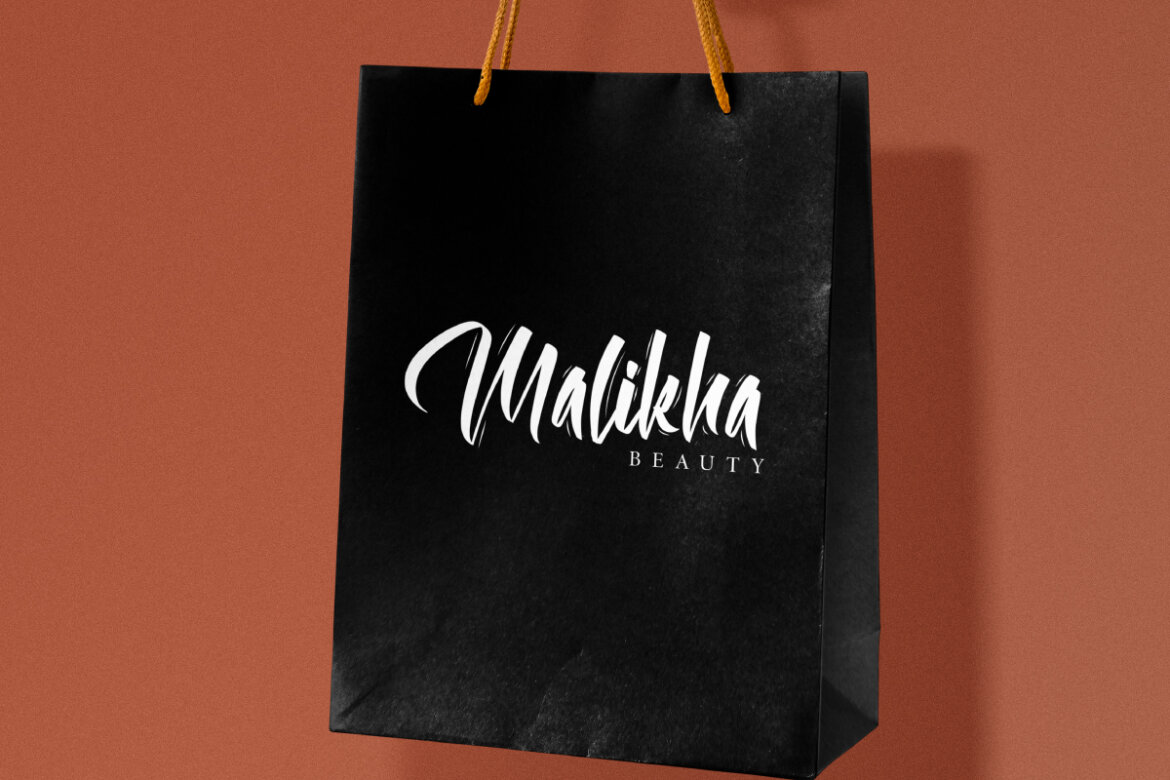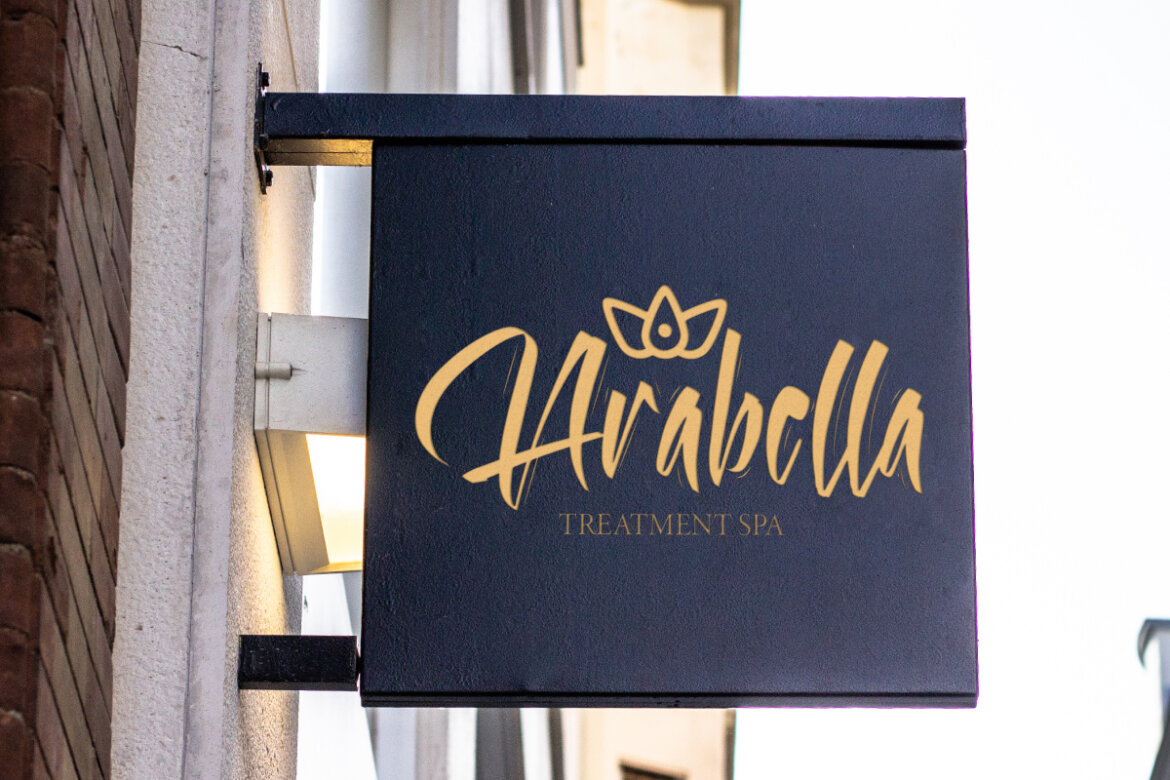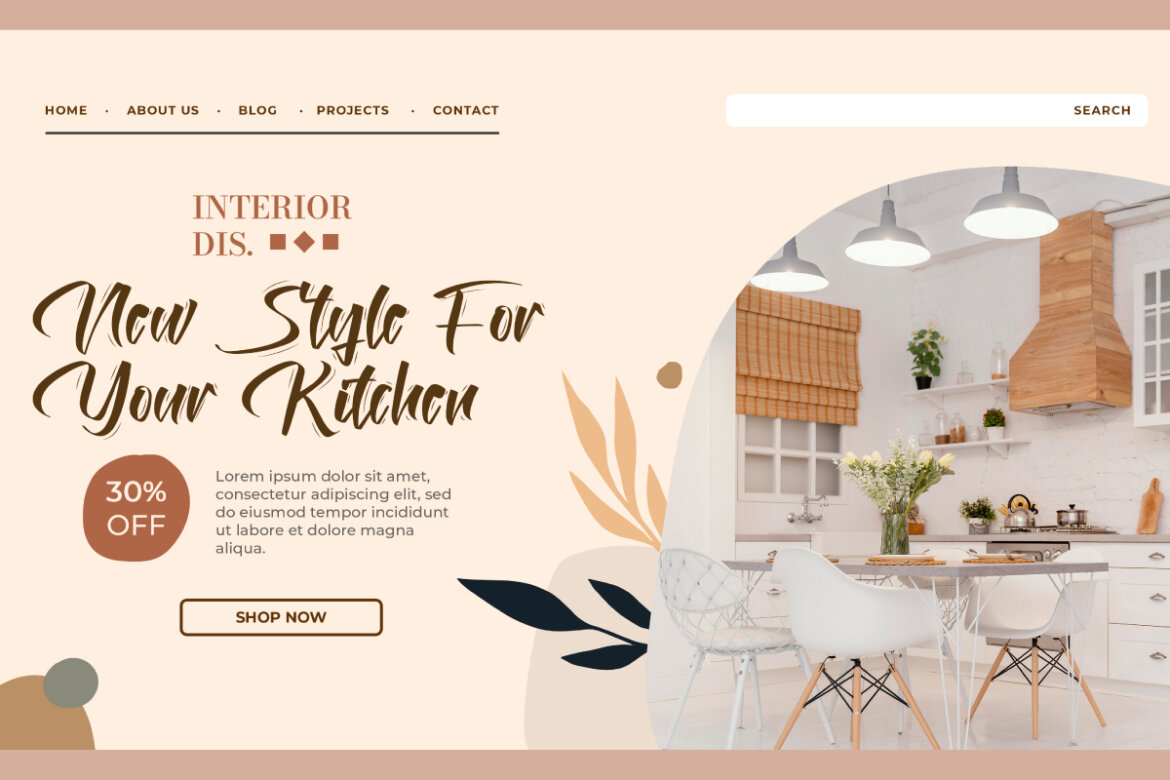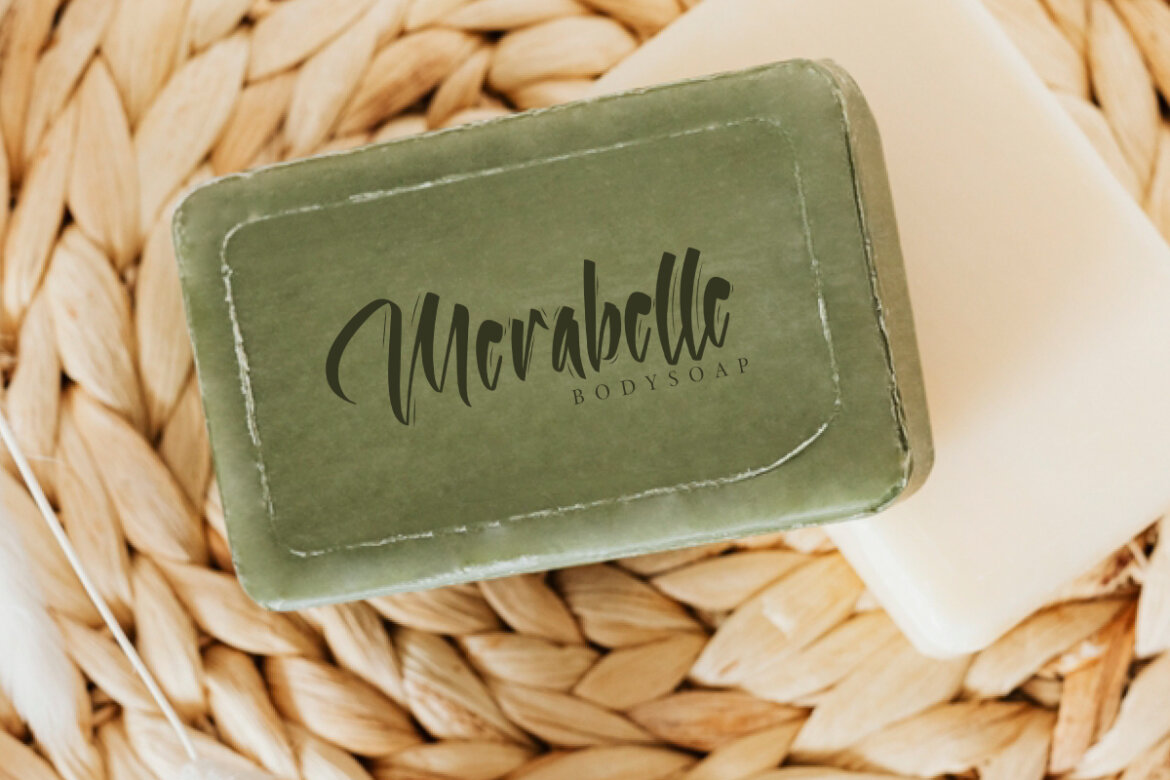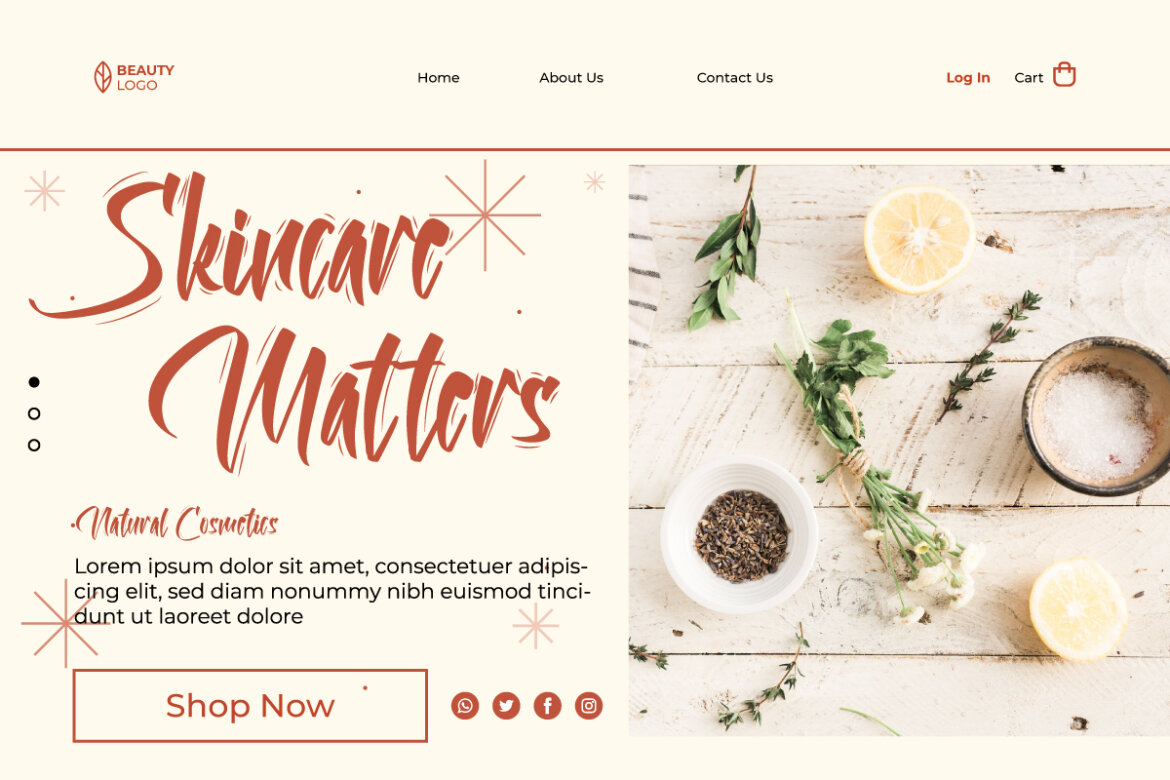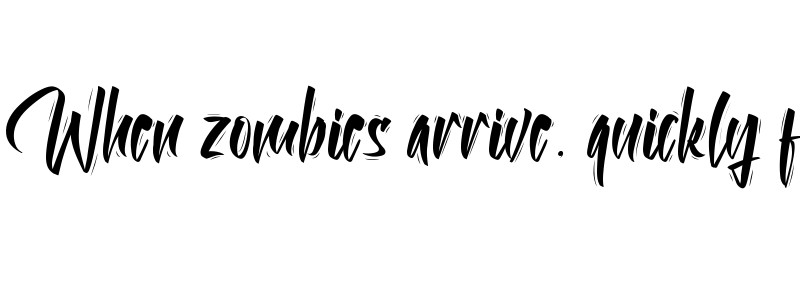
Halogenious Font
Halogenious
Halogenious Font is a vintage calligraphic script display font with textured effect on its characters. It will be perfect on all branding and digital designs. This font is perfect for advertising, blogs, brand identity, brochure, corporate sign, cover, headers, invitations, label, logos, packaging design, quotes, stationery, sticker, typographic design, website, etc.
Halogenious Font includes a complete set of Uppercase and Lowercase basic characters, Numbers, Punctuation Marks and Symbols. The font has a professional touch written in marker dipped in ink with a natural smooth line effect implied in it. Powerful attraction can complement whatever your business is, such as bakery, beauty clinic, café, clothing brand, content creator, cosmetic, crockery, fashion, furniture, graphic design, photography, restaurant, spa salon, and much more!